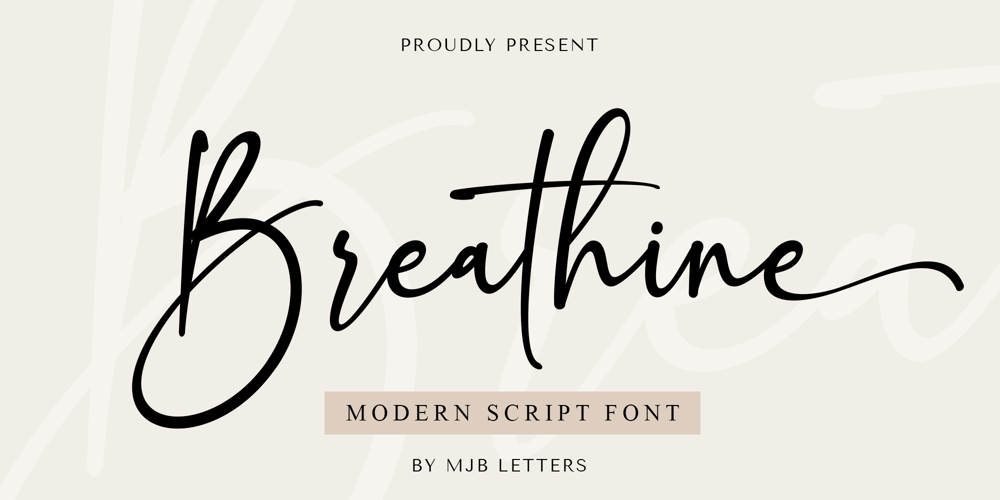
Breathine
Breathine font
Breathine Font Family was designed by Muhammad Mujibulloh and published by MJB Letters. Breathine contains 1 styles and family package options. Breathine is a modern script font, with stylish looks that will add a chic elegance to design, perfect for websites, wedding stationery, modern logos, personal branding, social media quotes, and more.Files Included: Works on PC & Mac Simple installations Accessible in Adobe Illustrator, Adobe Photoshop, Adobe InDesign, and even work on Microsoft Word. PUA Encoded Characters – Fully accessible without additional design software. Thank you so much for checking out my shop, and please get in touch if you have any questions!